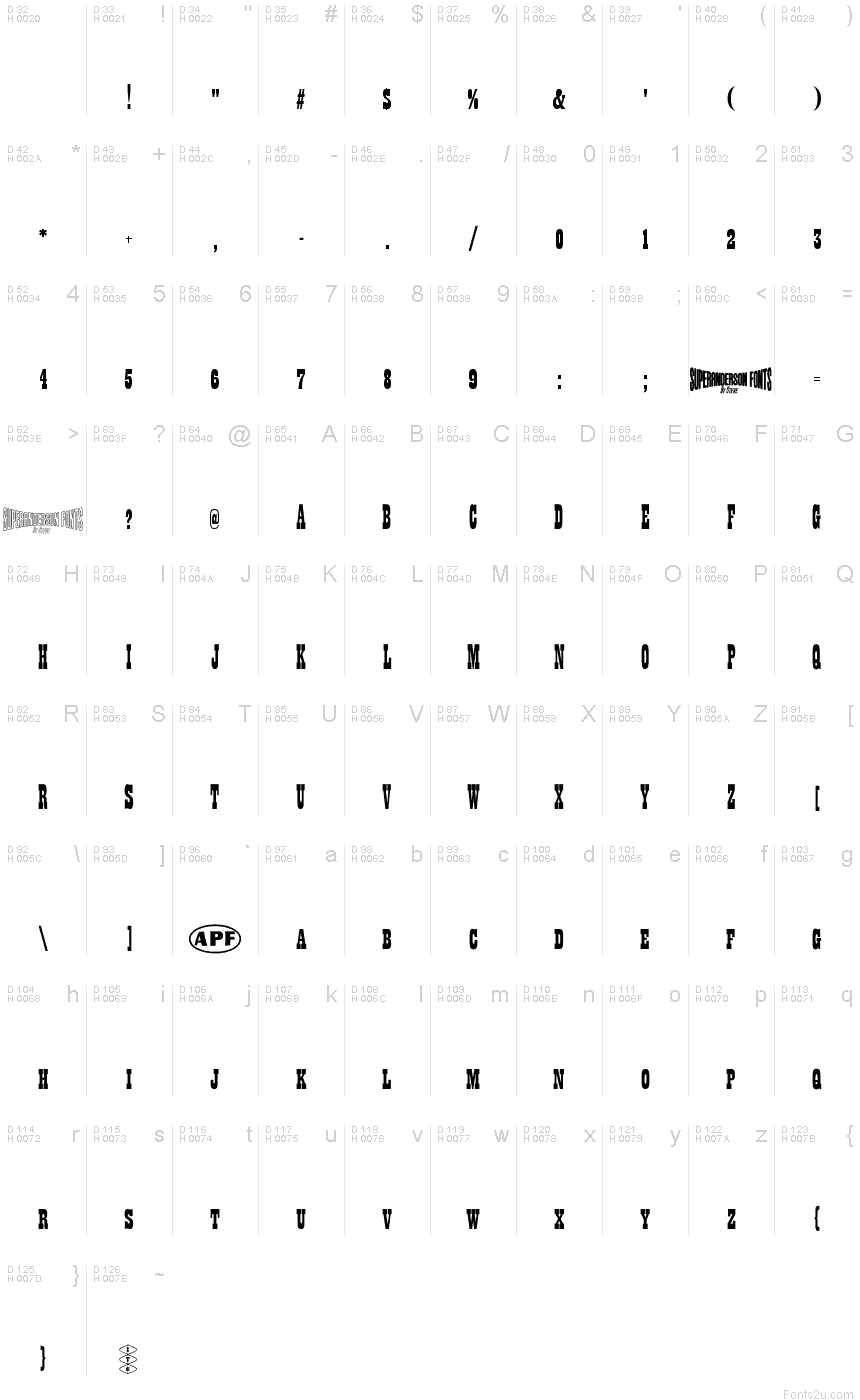
Anderson Thunderbirds Are GO!
Anderson Thunderbirds Are GO! font by Superanderson Fonts is a free retro display typeface that hits like a vintage TV title card. Ultra-tall, tightly packed letters shoot straight upward, with chunky verticals and a rigid rhythm that feels like rocket fins lined up on a launchpad. There’s a pulpy, sci‑fi drama in the way each character squeezes into the next, creating a bold, cinematic stripe of text that instantly reads as throwback adventure.
Using Anderson Thunderbirds Are GO!, your headlines snap into place on retro movie posters, sci‑fi book covers, comic-inspired logos, themed event flyers, game splash screens, and bold YouTube titles. The condensed proportions mean you can shout long titles across a narrow space without losing impact. This free font pairs well with a simple geometric sans for body copy-set the supporting text smaller and wider to let Anderson Thunderbirds Are GO! stay in the spotlight.
This is the Font used in the Gerry Anderson's SUPERMARIONATION TV Show Thunderbirds.